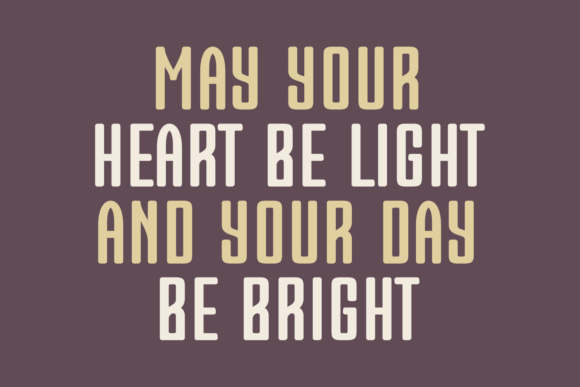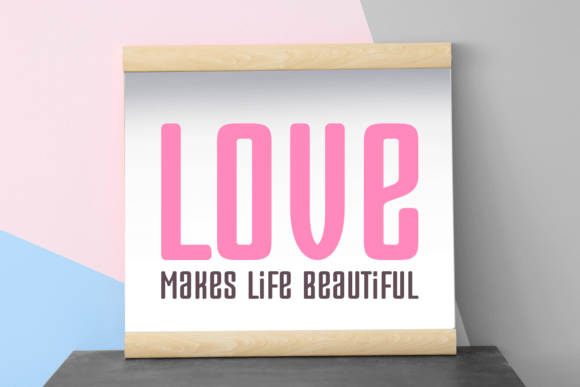
Diamond Creative Font: Elevate Your Designs with Bold Elegance
In the world of design, fonts play a crucial role in conveying messages, evoking emotions, and creating lasting impressions. For designers, crafters, and creators looking to add a touch of luxury and sophistication to their work, the Diamond Creative Font is an exceptional choice. This bold display font is remarkably versatile, adapting seamlessly to various contexts such as crafting labels, cosmetics branding, magazine covers, posters, manifests, social posts, and fashion designs.
The Versatility of Diamond Creative Font
Diamond Creative Font stands out due to its unique blend of boldness and elegance. Its design is carefully crafted to make your creations stand out, whether you’re working on:
- Crafting Labels: Add a professional touch to your handmade crafts. Whether it’s jewelry, candles, or artisanal foods, Diamond Creative gives your labels a sophisticated look that appeals to customers looking for unique, high-quality products.
- Cosmetics Branding: In the beauty industry, branding is everything. Diamond Creative Font can elevate your cosmetic brand’s packaging, advertisements, and marketing materials, conveying luxury and allure.
- Magazine Covers and Posters: Capture the attention of your audience with bold, eye-catching titles. Diamond Creative is perfect for magazine covers, event posters, and any other printed material that needs to make a statement.
- Manifests and Social Posts: For businesses and individuals looking to create a strong online presence, Diamond Creative can be used to design engaging social media posts and professional manifests that stand out.
- Fashion Designs: Whether you’re a fashion designer looking to brand your collections or a fashion blogger aiming to elevate your content, Diamond Creative adds a touch of class and sophistication to your work.
Why Choose Diamond Creative Font?
Choosing a font for your design project can be overwhelming, given the numerous options available. Here are a few reasons why Diamond Creative Font should be at the top of your list:
- Bold yet Elegant: Diamond Creative strikes the perfect balance between boldness and elegance, making it suitable for a wide range of design projects.
- Highly Versatile: Its adaptability means you can use it across various platforms and materials, from print to digital.
- Easy to Read: Despite its bold appearance, Diamond Creative remains clear and easy to read, ensuring your message is always communicated effectively.
- Unique and Memorable: In a sea of generic fonts, Diamond Creative offers a unique aesthetic that can make your designs more memorable.
How to Use Diamond Creative Font Effectively
To maximize the impact of Diamond Creative Font, consider the following tips:
- Pair with Complementary Fonts: For body text or secondary headings, pair Diamond Creative with simpler fonts to create contrast and visual interest.
- Experiment with Colors: While Diamond Creative looks stunning in metallic colors, don’t be afraid to experiment with different hues to match your brand’s palette or design theme.
- Consider Size and Weight: Play around with the font’s size and weight to create hierarchy and emphasis in your designs.
Diamond Creative Font is a powerful tool for designers and crafters aiming to add a touch of sophistication and elegance to their work. Its versatility, combined with its bold yet elegant appearance, makes it an excellent choice for a wide range of projects. By incorporating Diamond Creative into your designs, you’re not just choosing a font; you’re elevating your creations to new heights. So, add it confidently to your favorite creations and let yourself be amazed by the outcome generated.